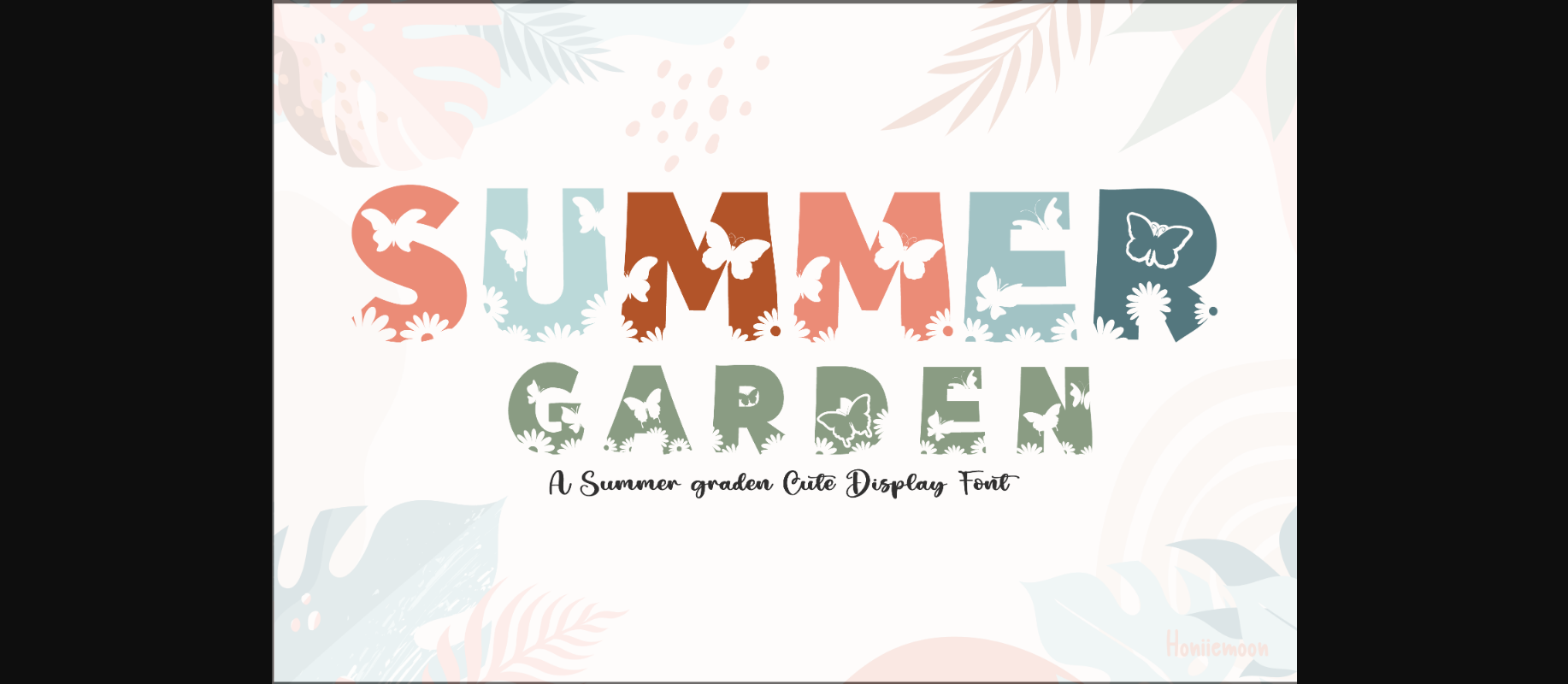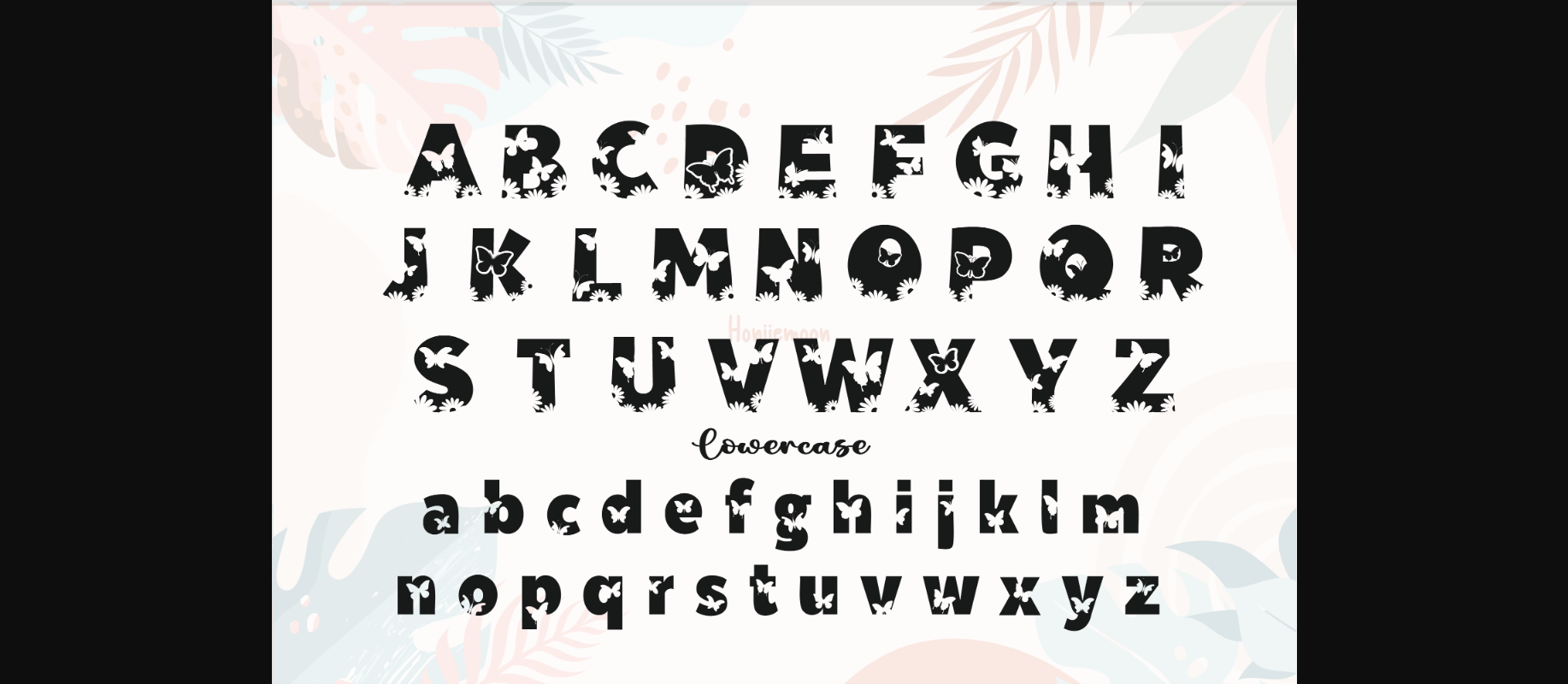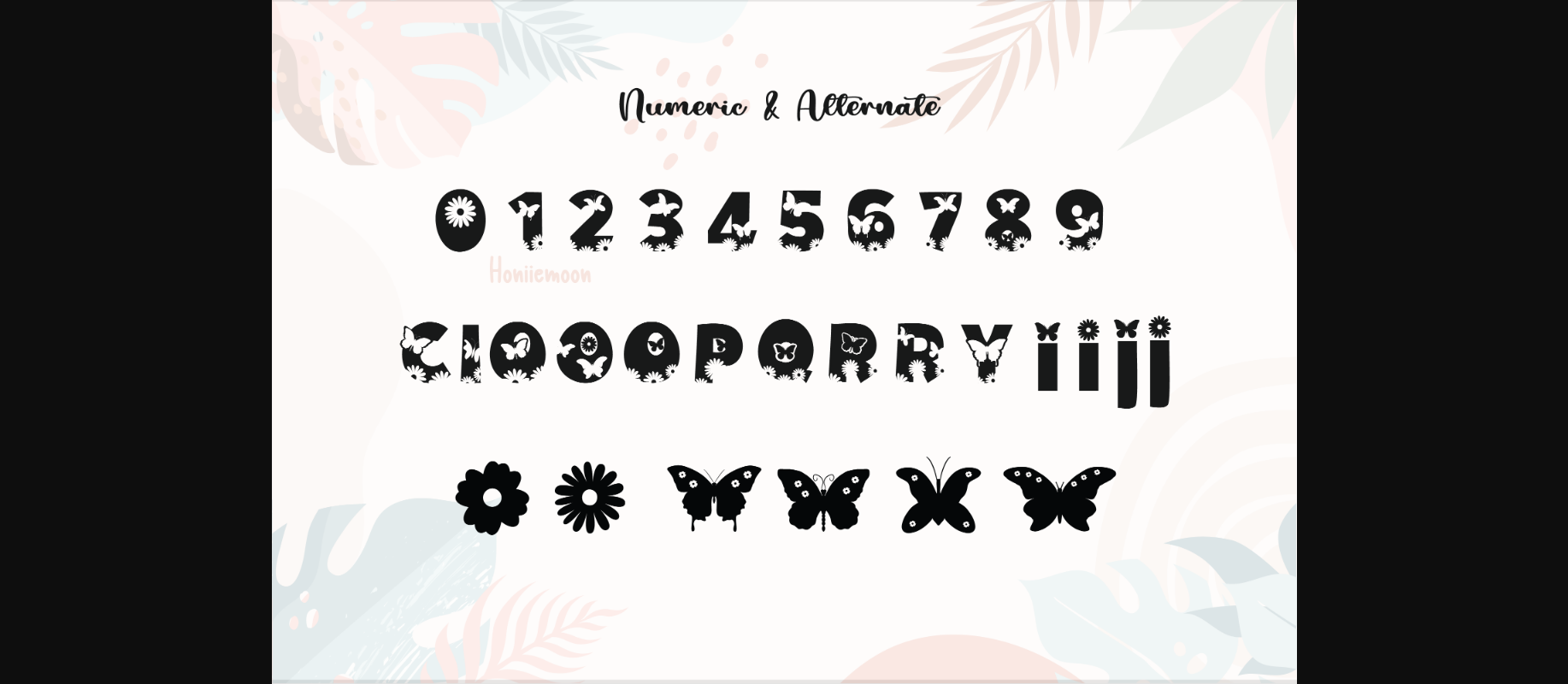
About Summer Garden Font
Summer Garden is a cool and fun decorative font. It looks both cute and jolly and it will enhance each of your designs. The only limit is your imagination. Add this lovely font to each of your creative ideas and notice how it makes them come alive!